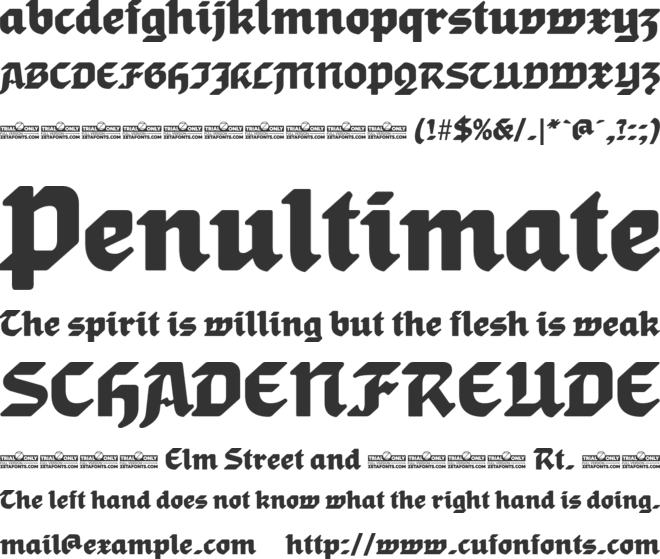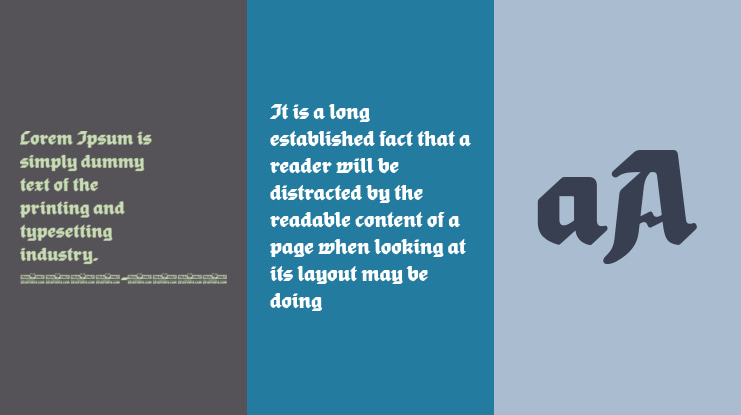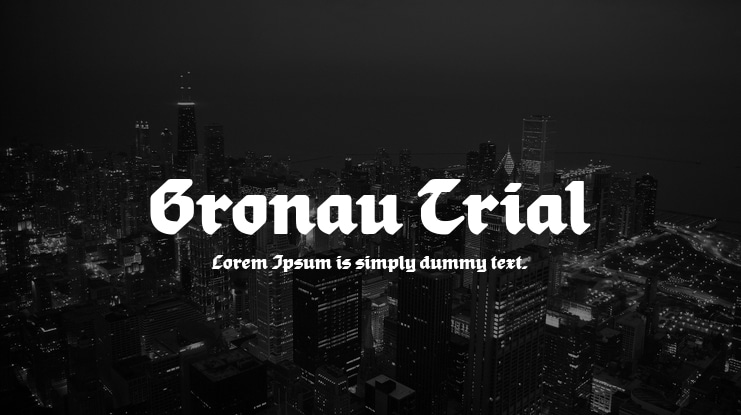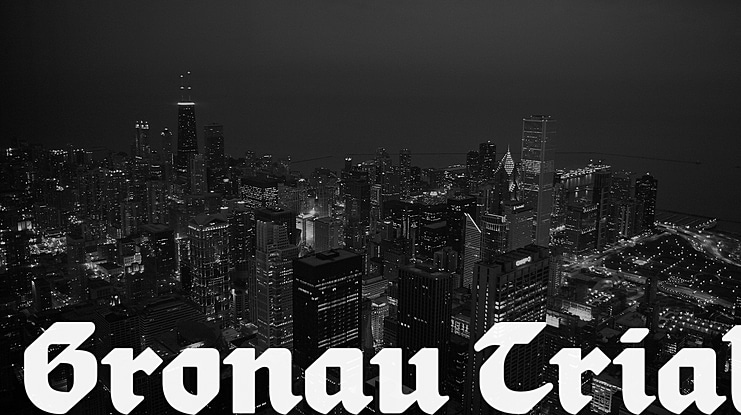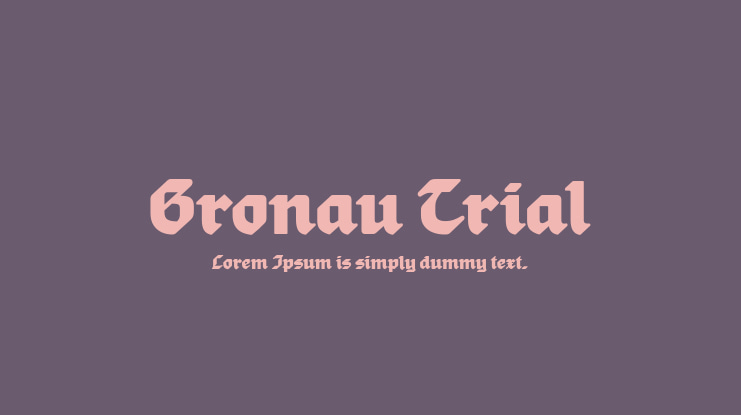
Andrea Tartarelli discovered the letterforms that would inspire his Gronau family in a 1912 specimen by the Berlin-based Wilhelm Gronaus Schriftgießerei, that showcased the typeface Fette Reichs-Deutsch, designed by Wilhelm Gronau in 1902. Even if Gronau also cerated Art Nouveau inspired typefaces like Berolina or idiosyncratic Sütterlin blackletter cursives like Hohenzollern Schrift, his work mostly centres on gothic letter shapes.
Fette Reichs Deutsch, that Tartarelli digitised as Gronau Fette, sports a very broad and square structure, mild contrast and a very geometric treatment of shapes, with slightly rounded terminals, straight lines and clear 45 degree angles. This unusual, pre-modernist approach to letterform inspired Tartarelli to explore its potential for display use, with the creation of an inline version that modernises the original and pushes to the maximum its dynamic energy. Gronau inline design transforms the broad nib marks into a ribbon folding in 3d to recreate the original letterforms, adding a dynamic, sporty language to the original typeface gothic feel. With Gronau Neue, Tartarelli tried to find a contemporary, gestural interpretation of blackletter shapes, adding a slightly calligraphic look and feel to to the original hasty lines and energetic construction. More...
This third variant of Gronau is the one that most departs from the original mode: using generous x-height and condensed proportions, it achieves a more contemporary feel and extends the family expressive range into display, editorial and packaging options. All the versions of Gronau sport a wide range of Open type features and glyph alternates, further enriching the usage possibility of this typeface that embodies our contemporary swap culture by embracing the many subtleties and historical interpretations of blackletter typography while at the same time playfully expressing with a digital, dynamic spirit.